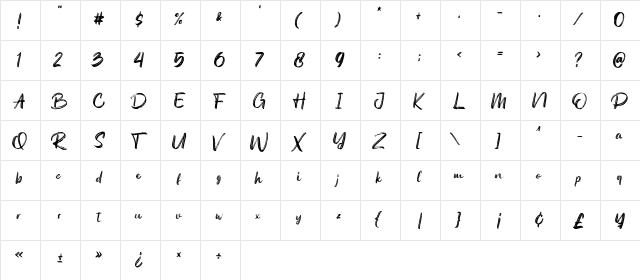
Austellia Regular
| Foundry | Garisman Studio |
| Designer | Risman Ginarwan |
Design Context for Austellia Typeface
Austellia is a composed and adaptable typeface that performs quietly and consistently across a wide range of design contexts.